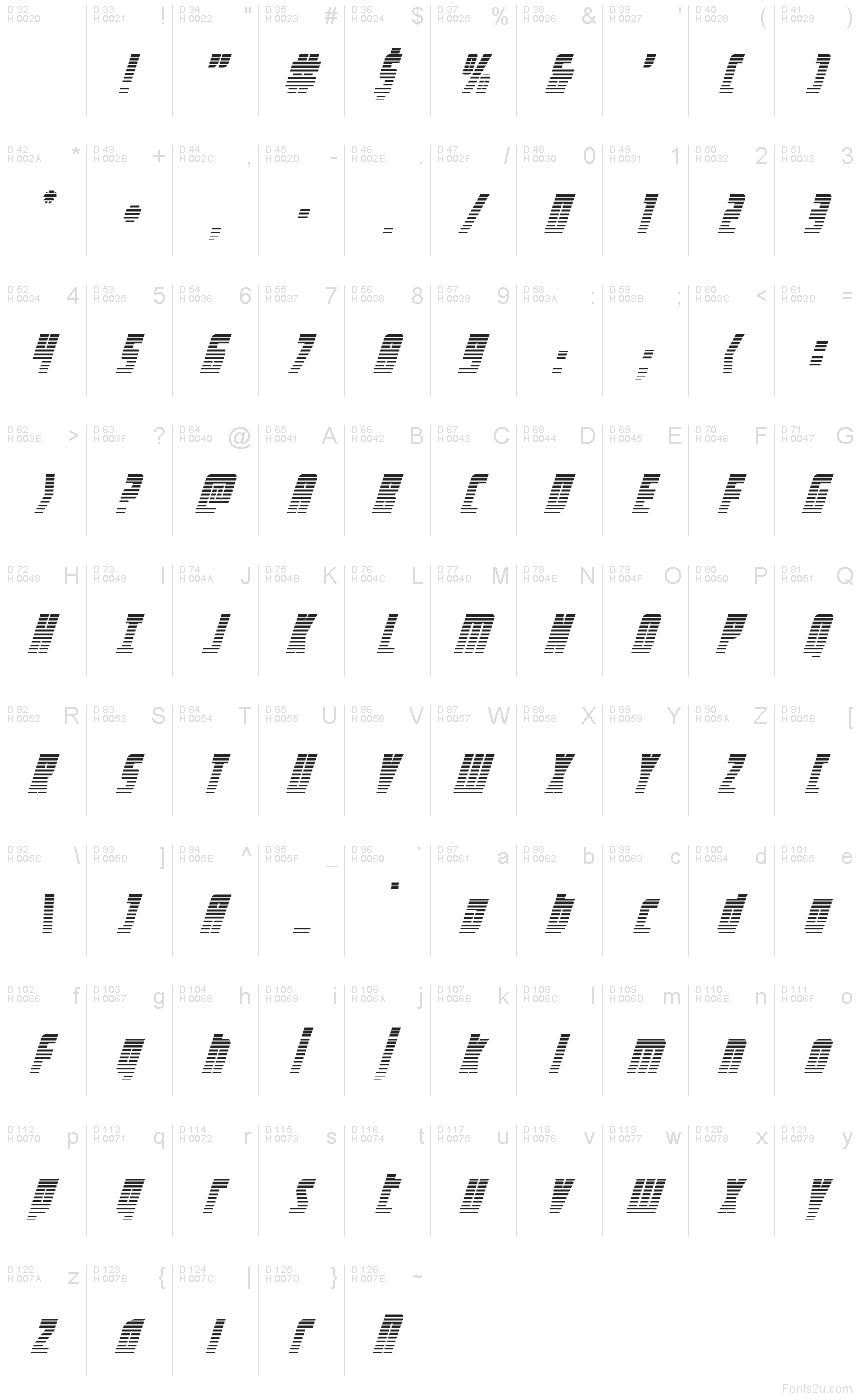
Impact Wrench Gradient 2 Ital
Impact Wrench Gradient 2 Italic font by Iconian Fonts is a techno-futuristic display font with a geometric visual appearance that makes it unique. It features condensed letters, has streamlined lines, and includes lettering in italics for an added stylish feel. The font’s cool look is retro-futuristic and slightly resembles sleek racing block letters.